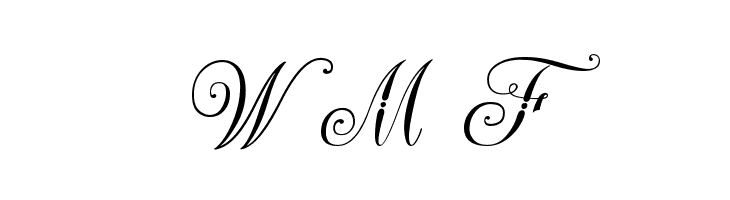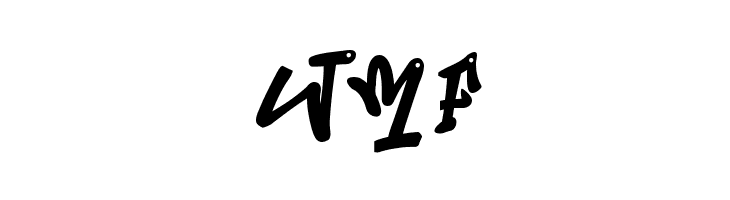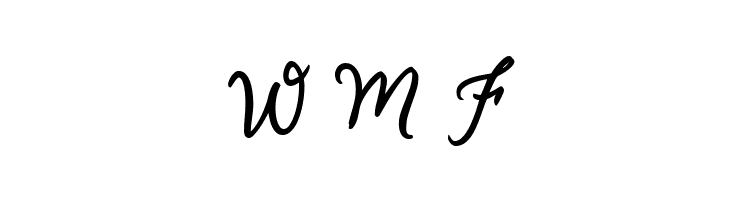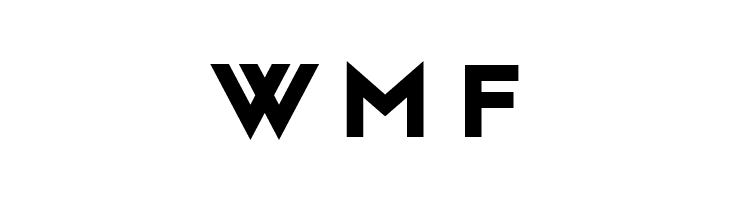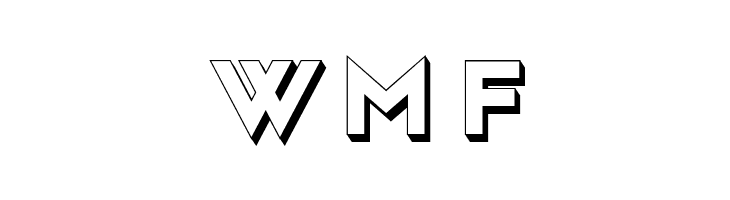
• Arek Is So Grungey
A rugged, distressed font with a grunge-inspired, chaotic style.
• Arellia
An elegant script font with flowing, ornate swashes and a romantic style.
• Arellion
An ornate script font with intricate swirls and flourishes, exuding elegance and sophistication.
• Aremoin Regular
A cursive, handwritten-style font with elegant, flowing characters.
• Arena 3D Regular
A bold, 3D font with geometric shapes and shadow effects for a modern look.
• Arena Graffiti
A bold, graffiti-inspired font with dynamic, expressive strokes.
• Arena Graffiti
A bold, graffiti-style font with dynamic, expressive strokes.
• Arena Regular
A bold, geometric font with clean lines and a modern aesthetic.
• Arenq
A modern, geometric font with clean lines and a minimalist design.
• arepas y queso